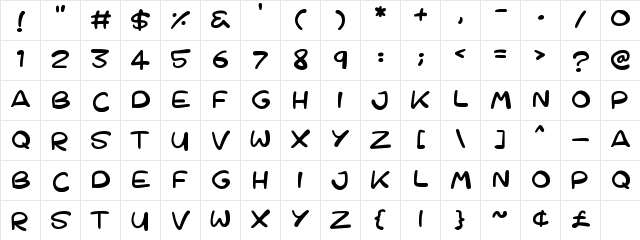
Cartoons 123 Regular
Design Context for Cartoons 123 Typeface
Cartoons 123 trades formality for fun, with bouncy, characterful letterforms that bring warmth and energy to any project.
Font Pairing: Pairs well with a rounded or humanist sans for body copy, maintaining the friendly tone without relying on Cartoons 123 to carry extended reading.
Pro Tip: Use Cartoons 123 at larger display sizes where its expressive character can land. Pair with a clean, simple sans for body copy to maintain readability.